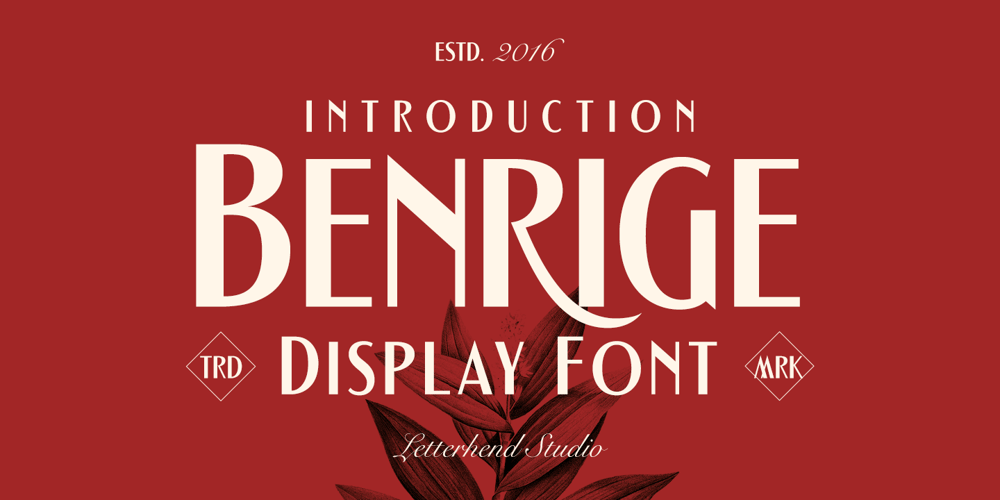
Benrige Font Family was designed by Hendry Juanda and published by Letterhend. Benrige contains 1 styles and family package options. The Benrige display font showcases a harmonious fusion of vintage aesthetics and modern sensibilities. Its stylishly bold characters stand out, making it perfect for eye-catching headlines, branding, and creative projects that require a touch of elegance.Features : Uppercase & lowercase Numbers and punctuation Alternates & Ligatures Multilingual Support PUA encoded